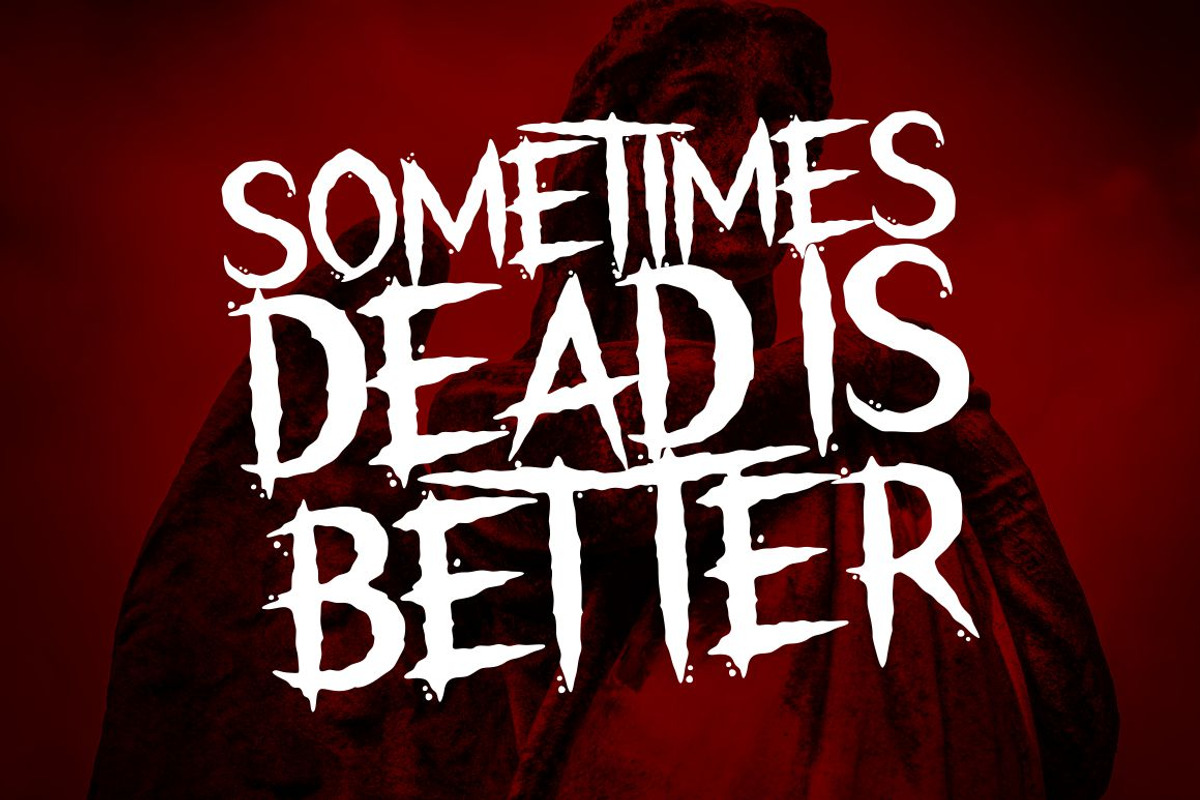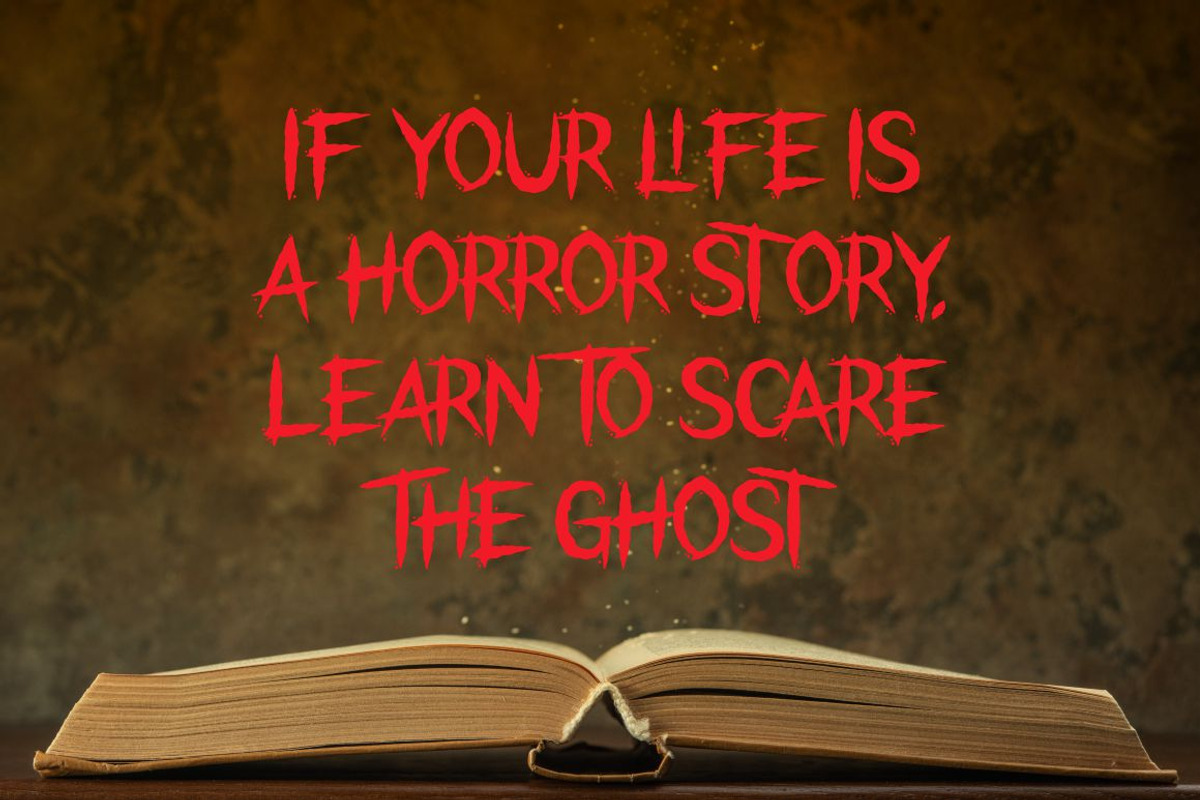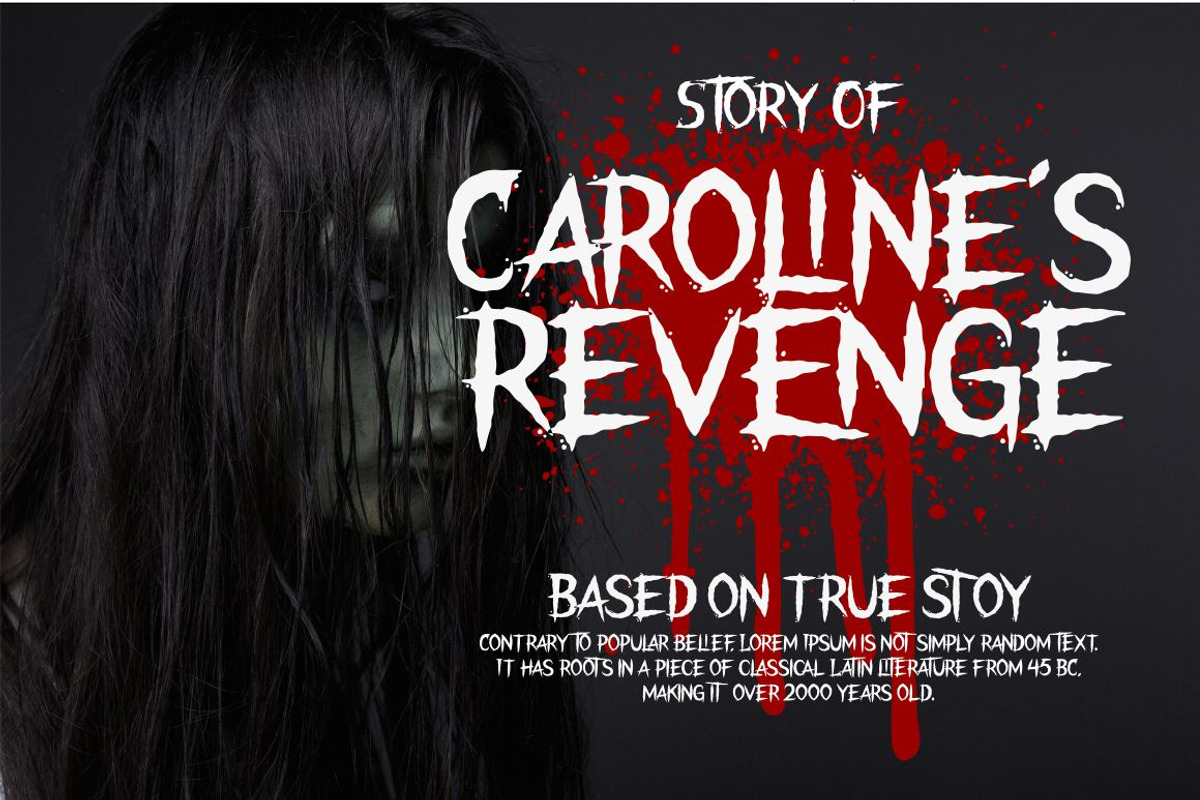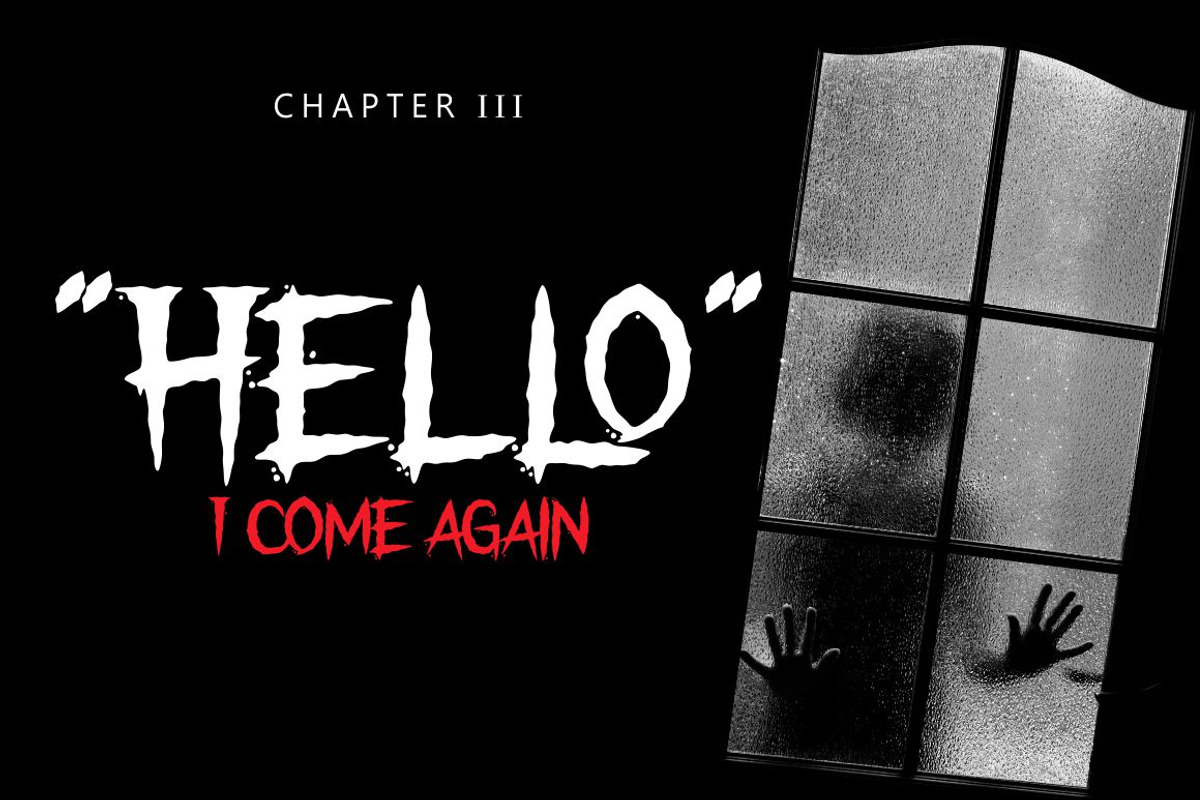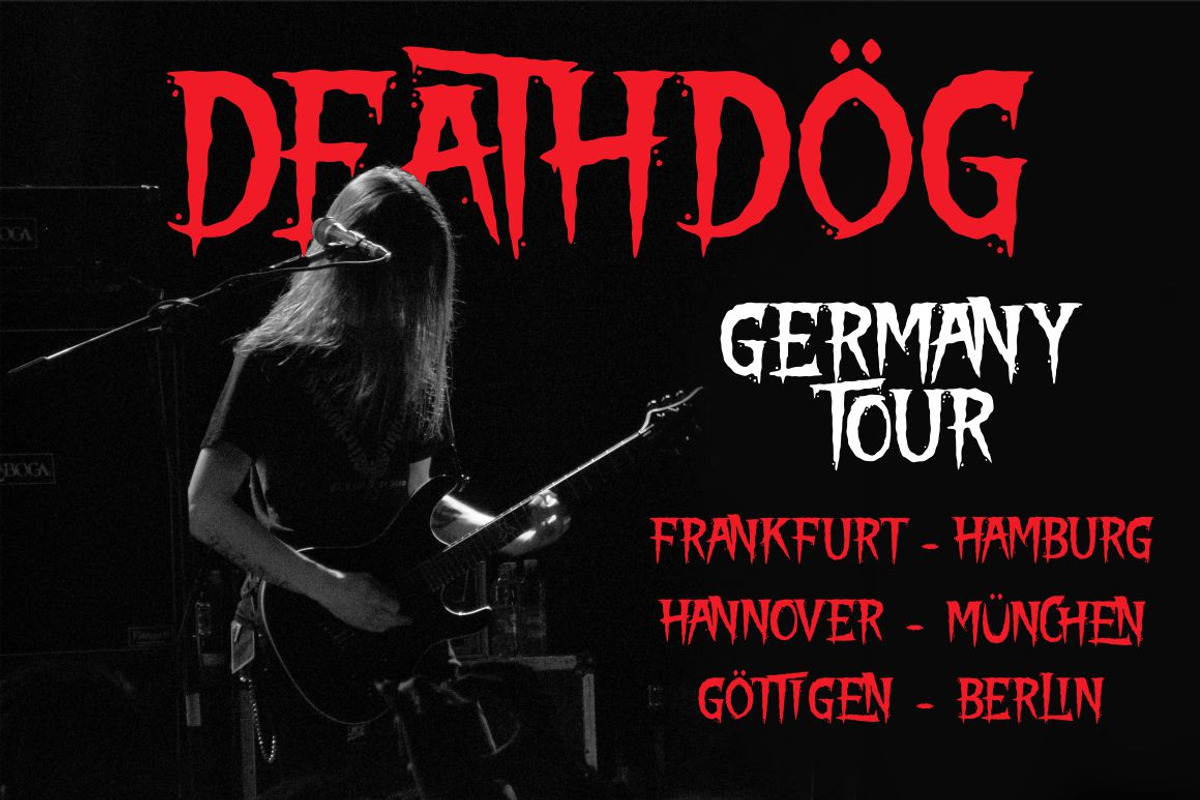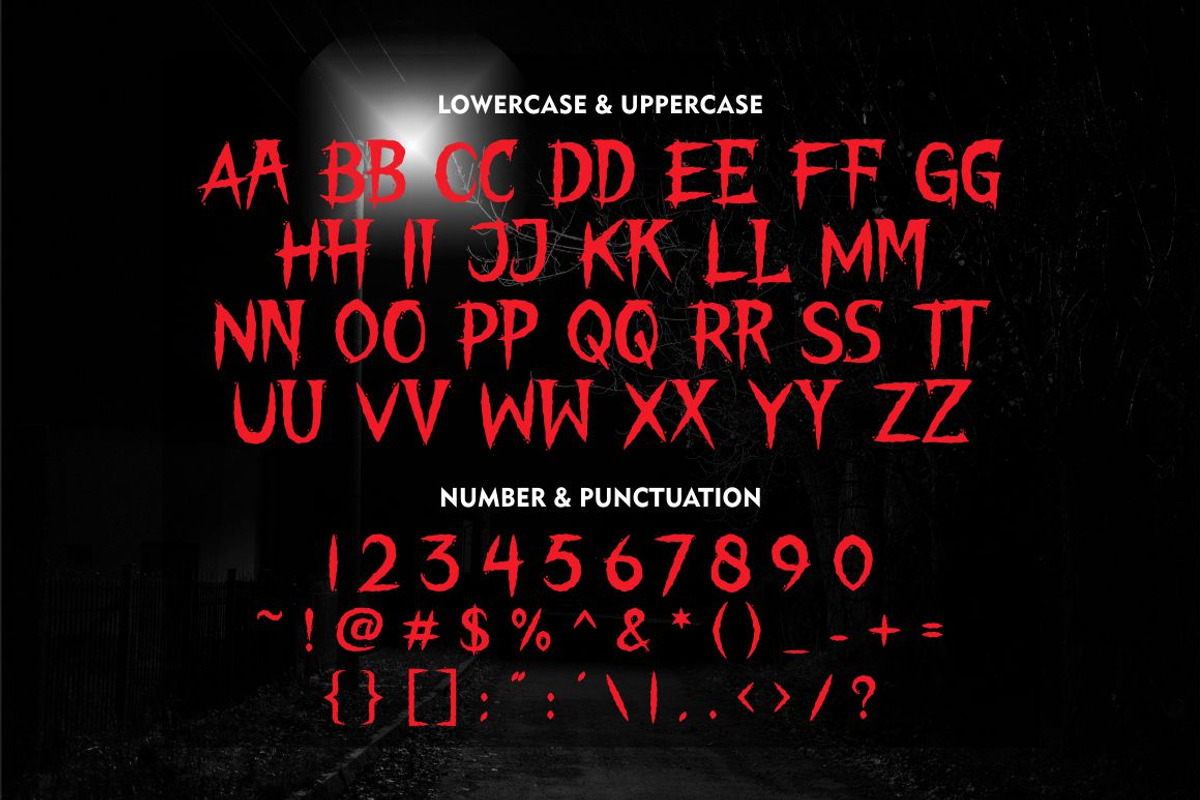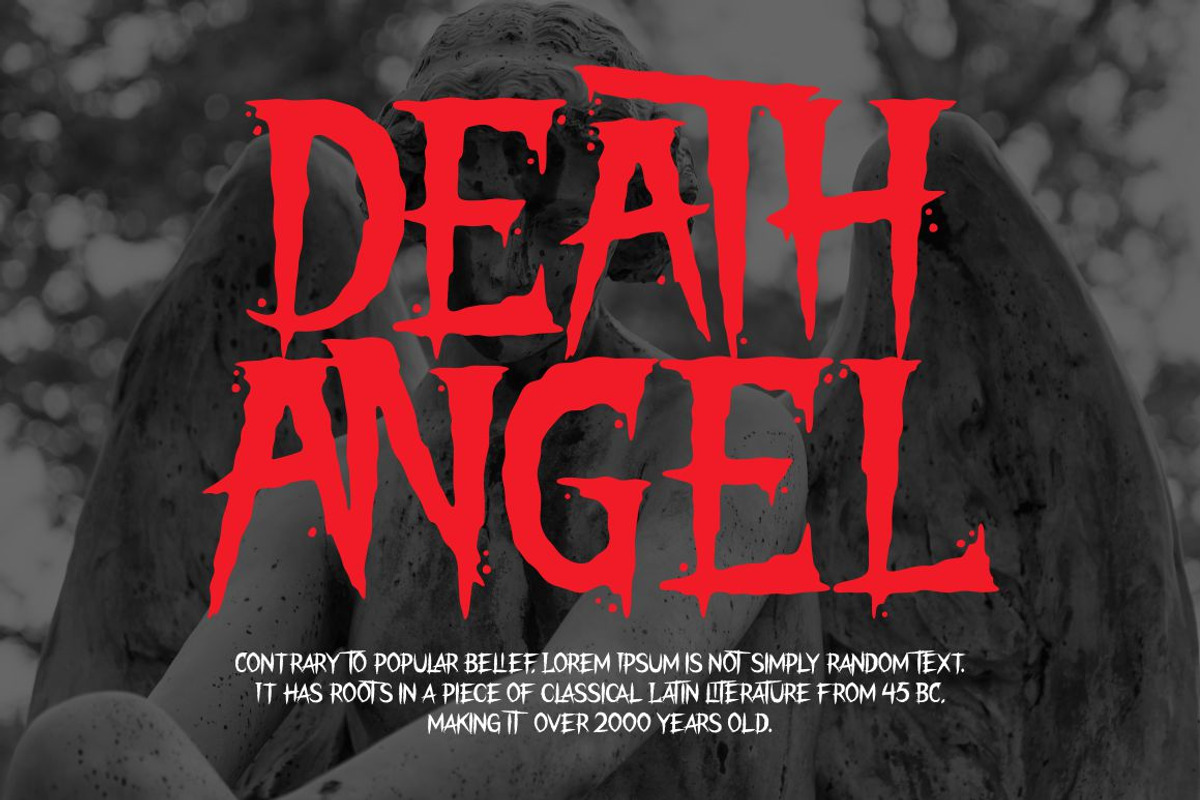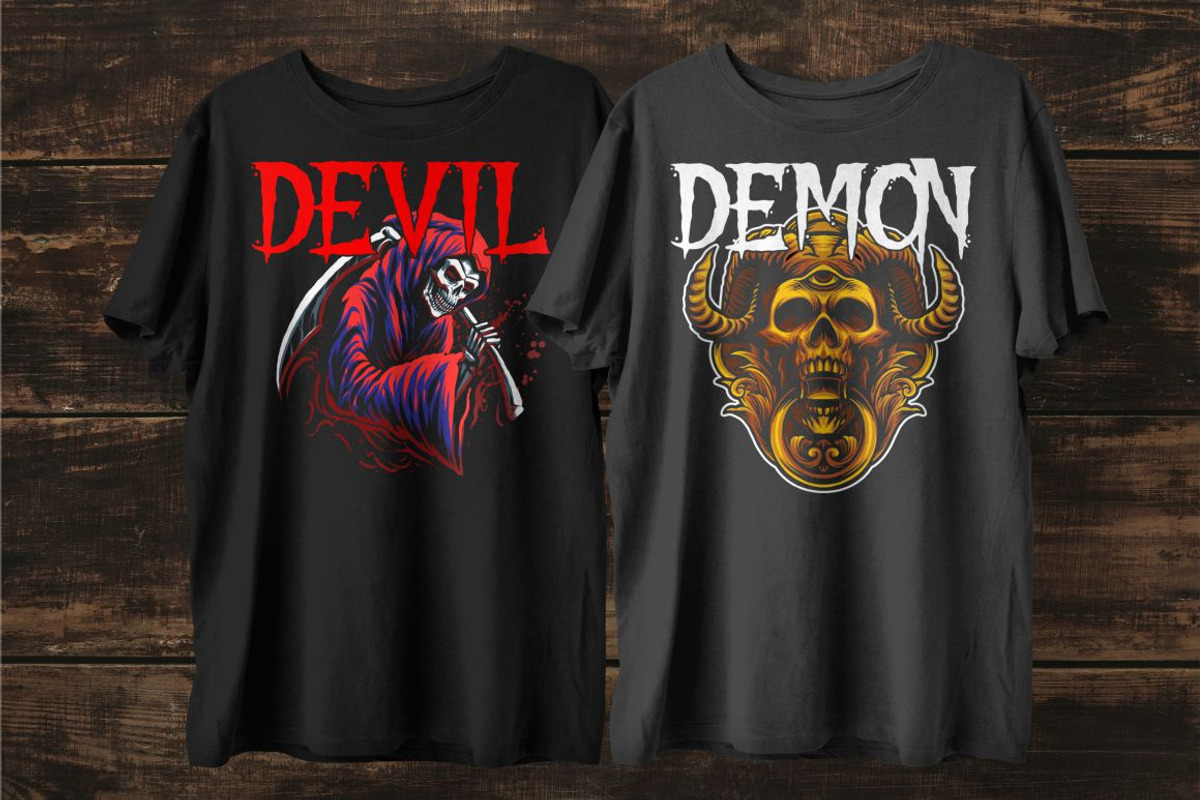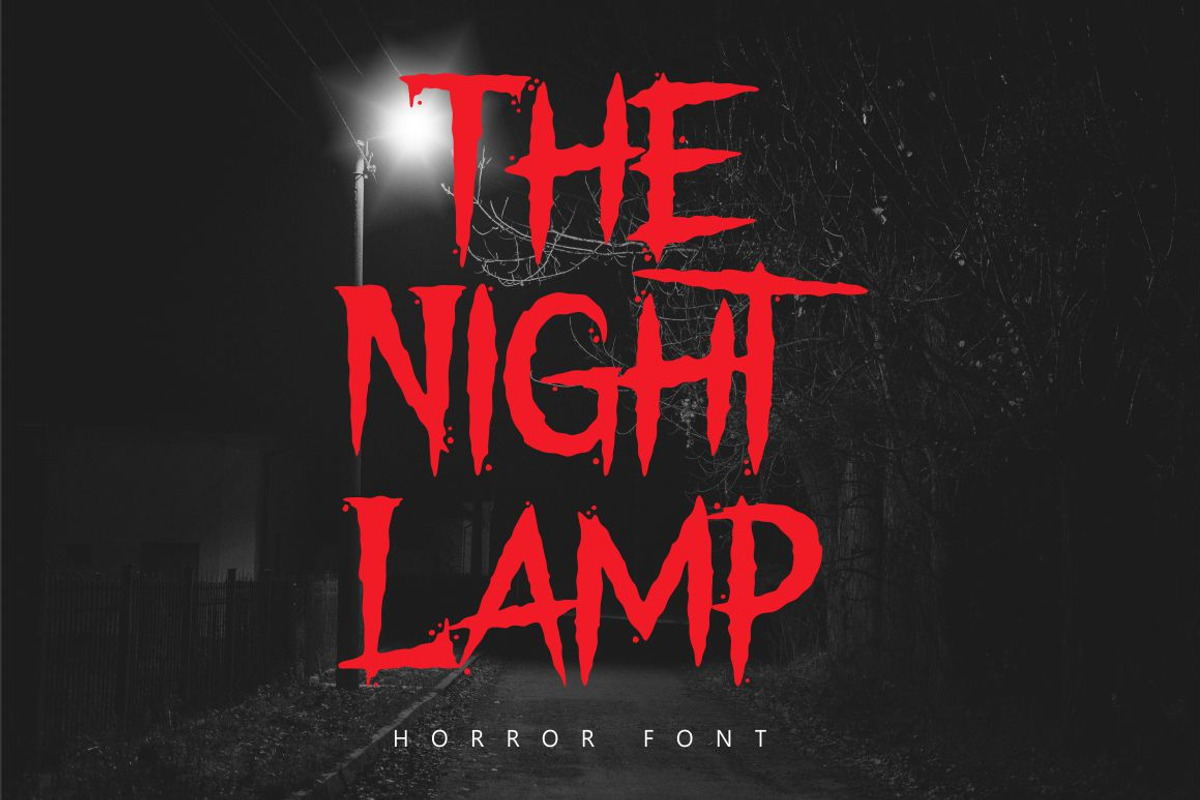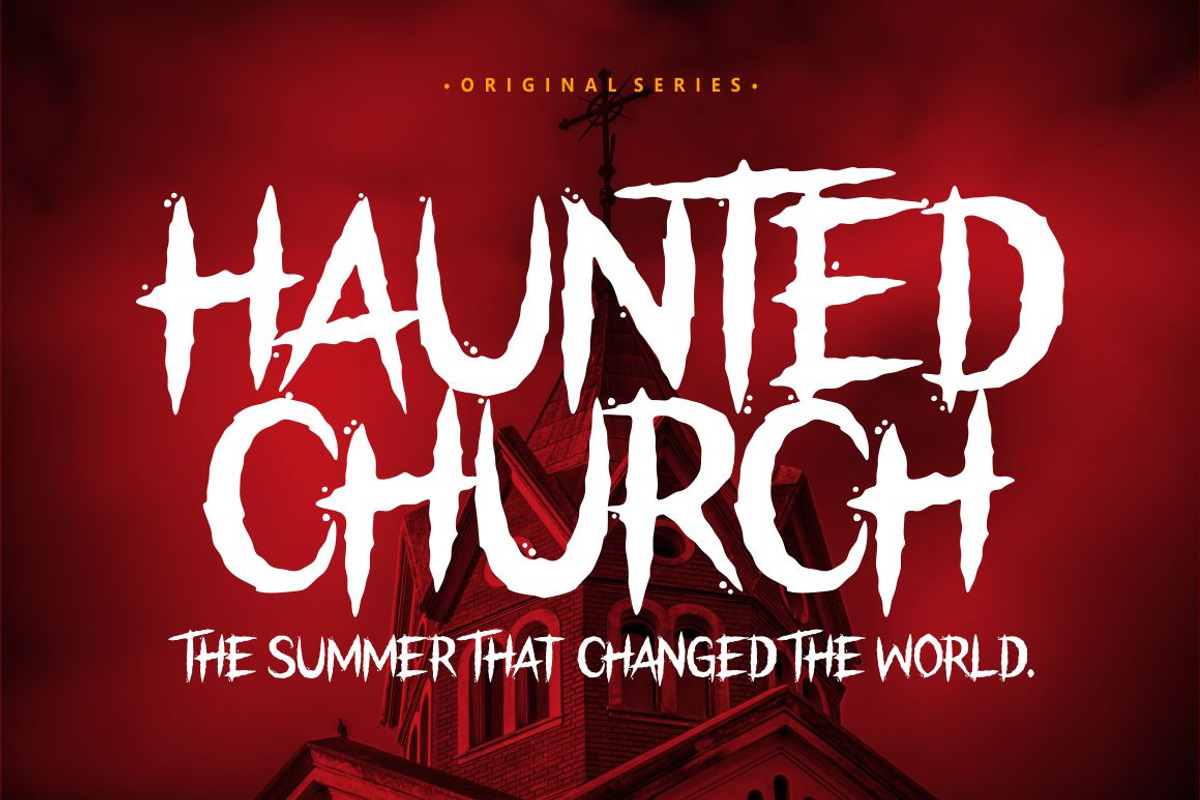
The Night Lamp - Halloween Font
THE NIGHT LAMP - HORROR DISPLAY FONT
The Night Lamp is a horror style display font. Inspired from horror thriller movie. This font designed for Halloween, Horror, Thriller and Scary theme projects. The Night Lamp would be perfect for logo, quotes, apparel, comic, cover books, cards, posters, or anything that requires a horrror or scarylook!
- Number, Punctuation And Symbols
- Multilanguage Support